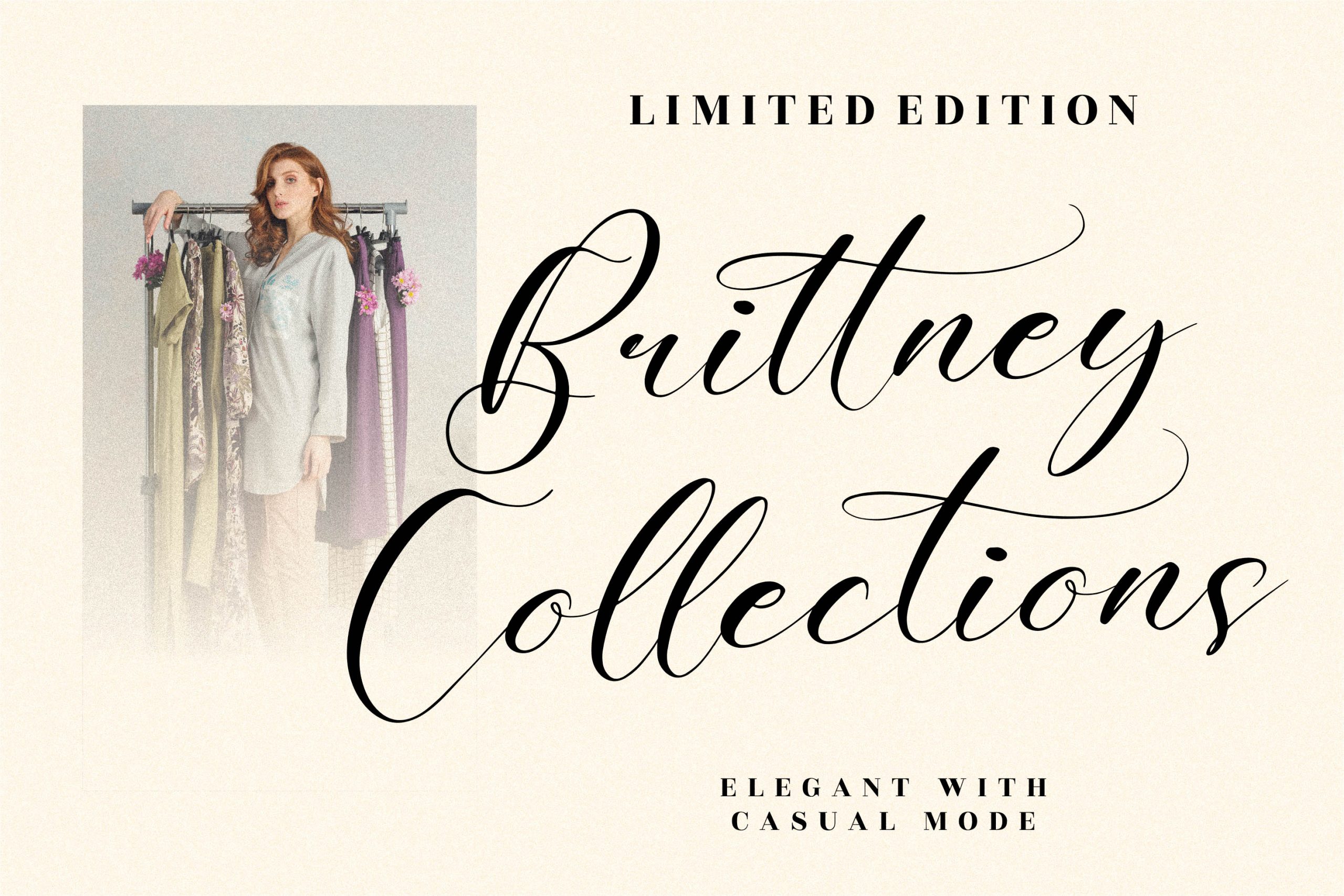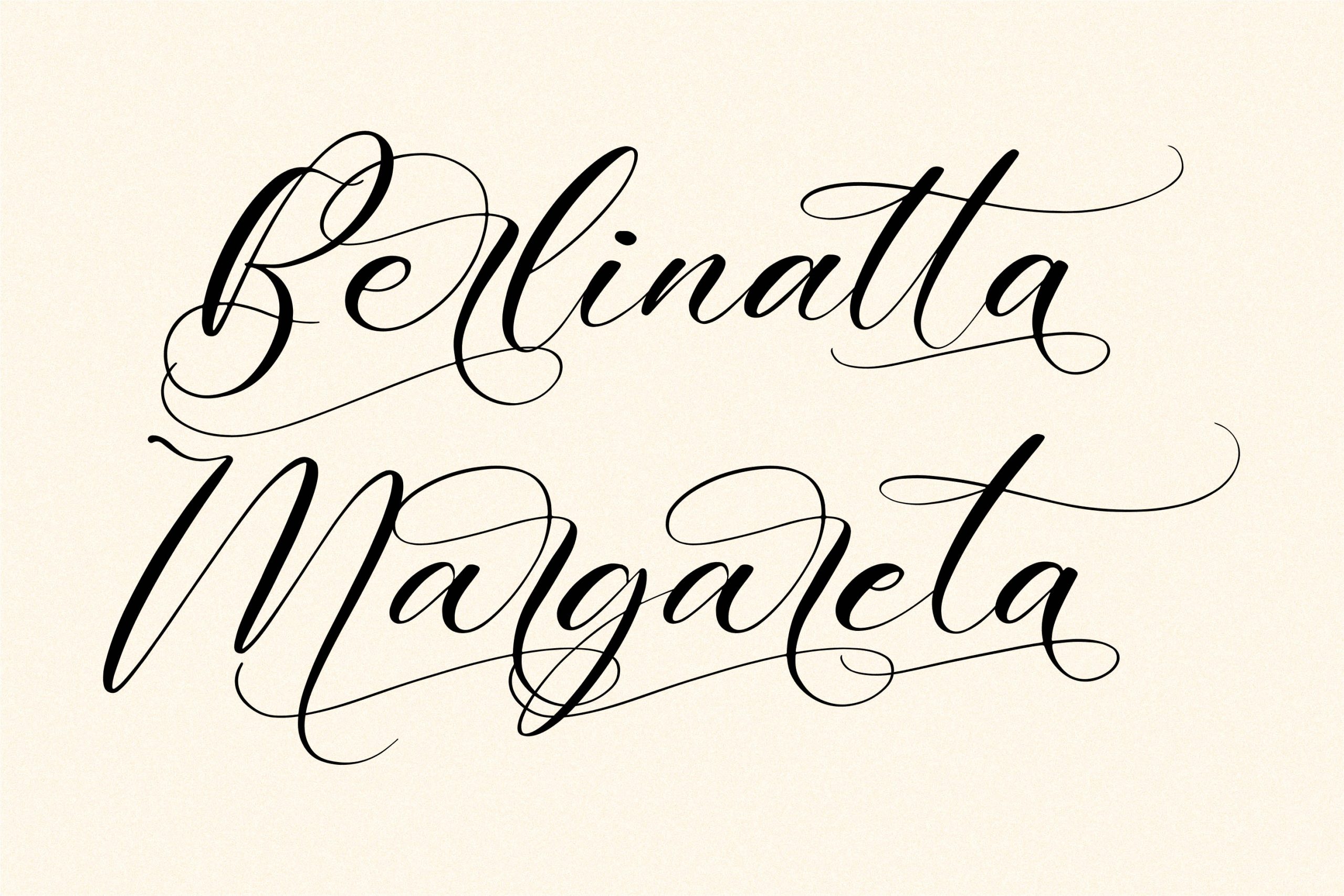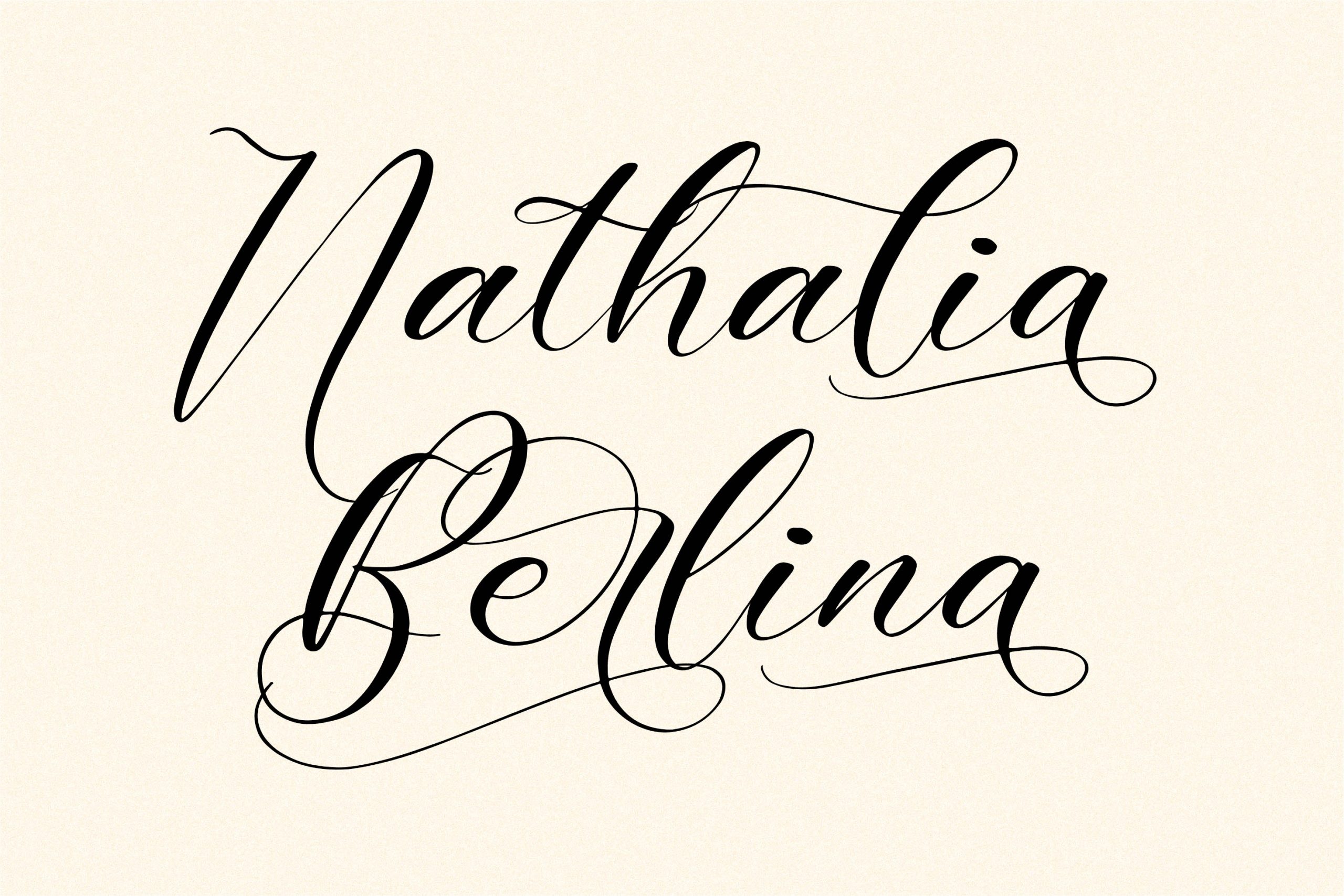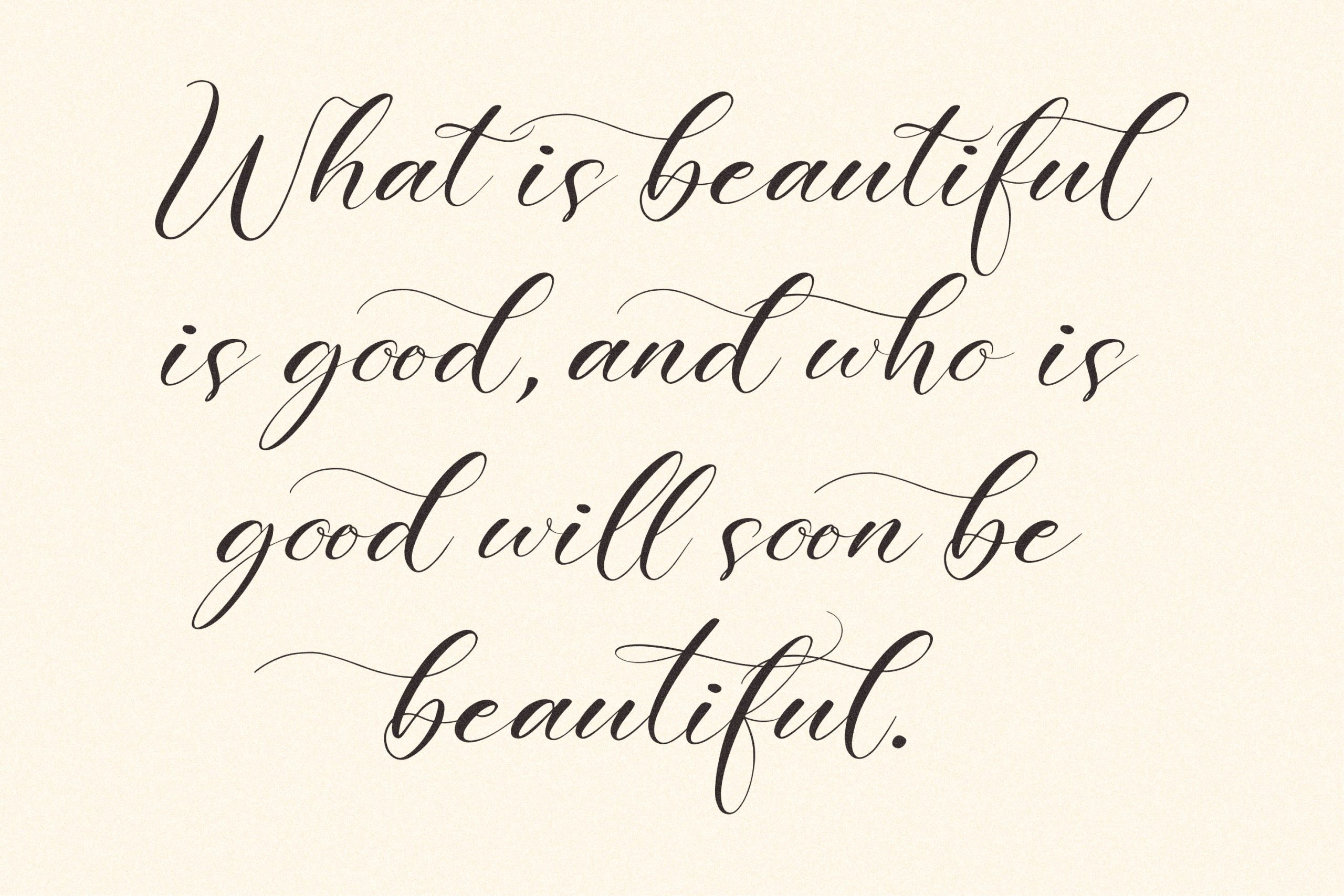
Harietta Bulmer Font
Harietta Bulmer Script Font
It’s a romantic calligraphy font, suitable for any projects such as: logos, branding projects, homeware designs, product packaging, mugs, quotes, posters, shopping bags, t-shirts, book covers, name card, invitation cards, greeting cards, label, photography, watermark, special events, and all your other lovely projects that need a beautiful script taste.